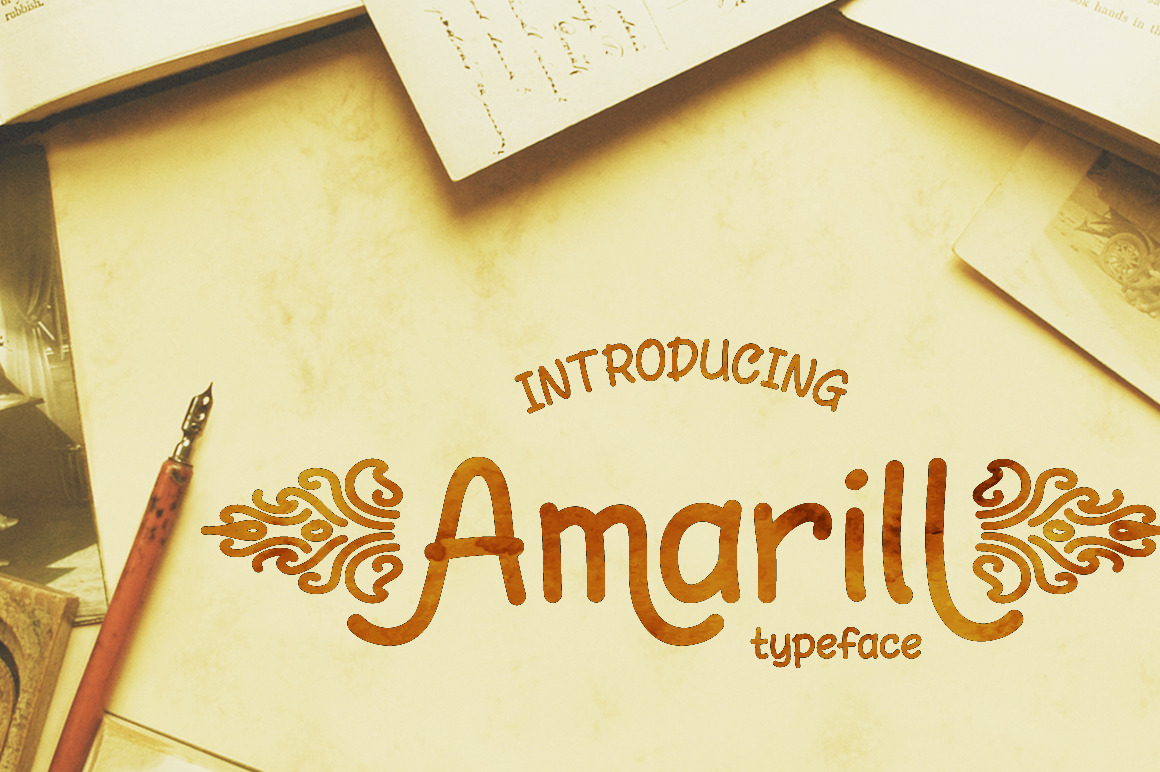
Amarill Font
Amarill typeface is handwritten modern sans serif font. 8 Styles 341 glyphs included : Amarill Regular, Bold, Italic, and Bold Italic. Amarill Extended, Bold, Italic, and Bold Italic. Alternates and Ornaments element.
Amarill typeface comes with alternate upper and lowercase characters, and supports international languages. To check all glyphs see the last page, please click 2nd preview!